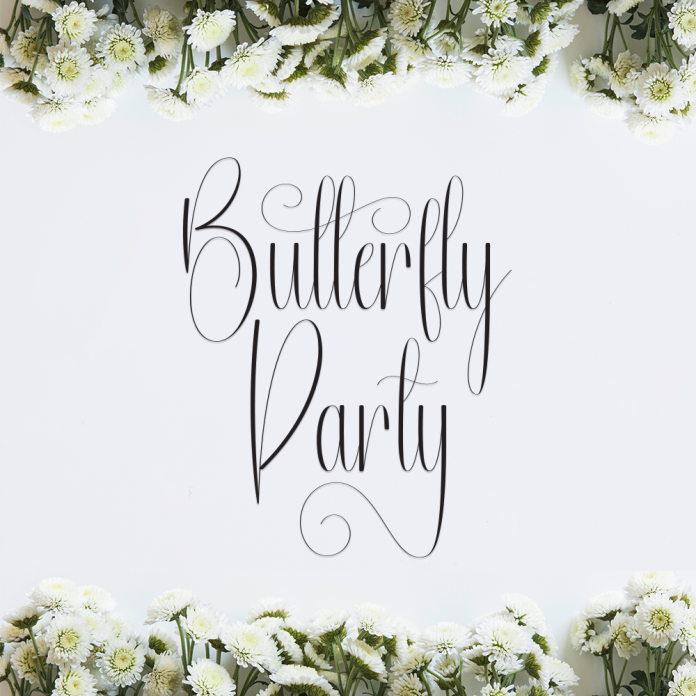
Butterfly Party is a delightful handwriting font that flutters with charm and creativity. Its playful strokes and soft curves give off a light, breezy feeling—like butterflies dancing in a garden. Perfect for kid-friendly projects, birthday themes, invitations, and anything that needs a sweet, joyful vibe.
Whimsical handwritten style
Soft, rounded lettering
Perfect for playful and cheerful designs
Bring your designs to life with the fun-loving spirit of Butterfly Party!